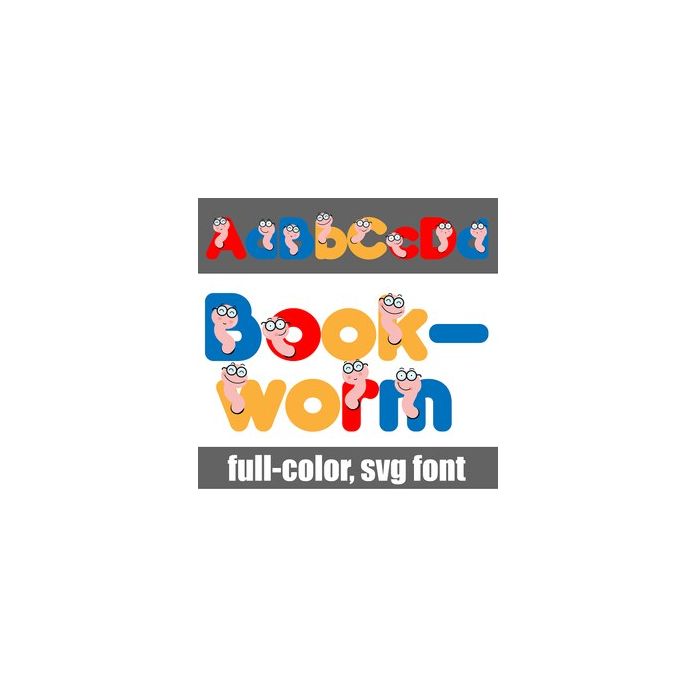
This full-color font features bookworms on primary colored lettering. There is an alt case w/ additional colors you can access through your system or Silhouette's glyph map.